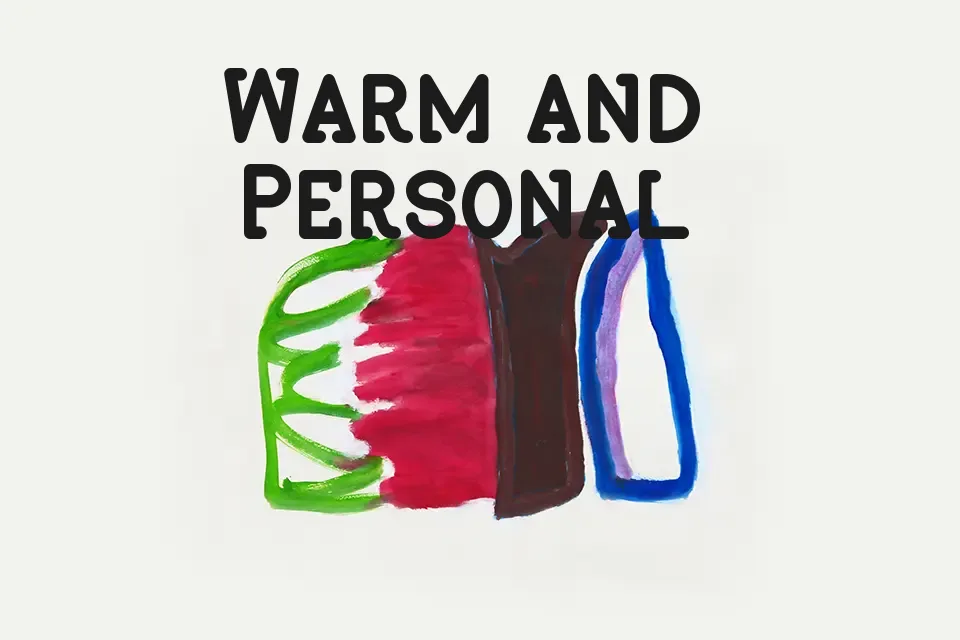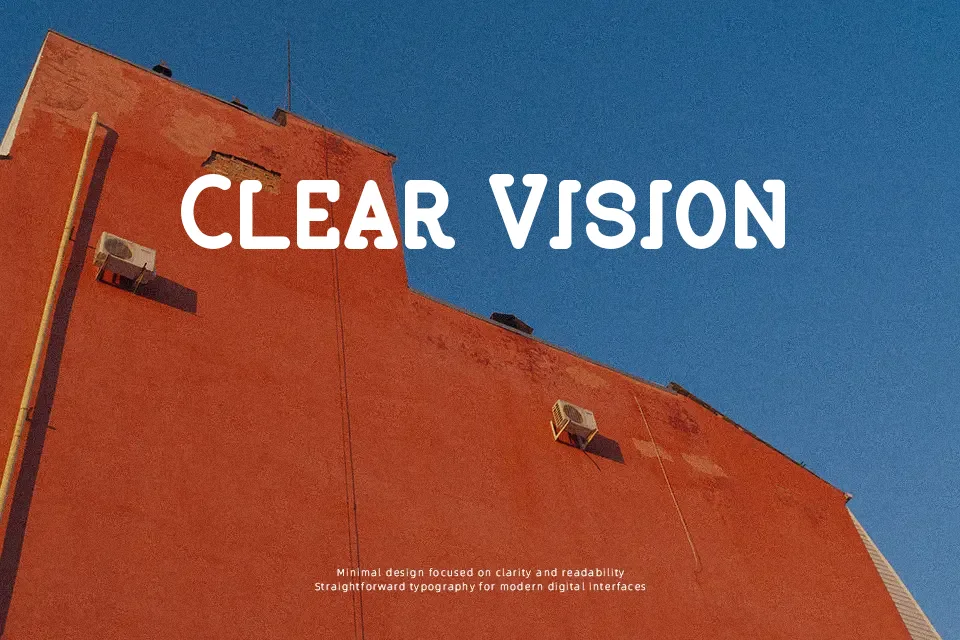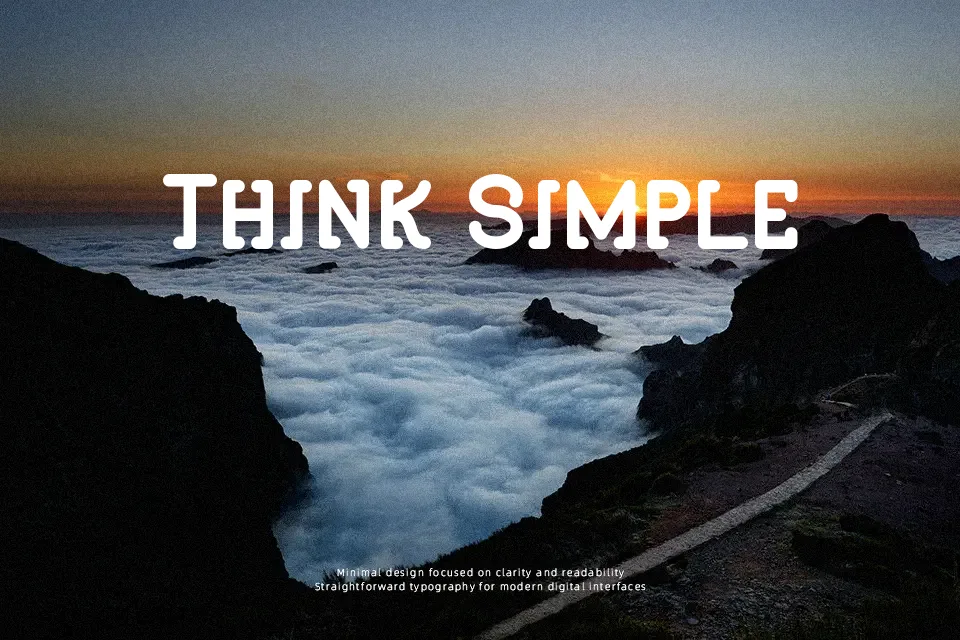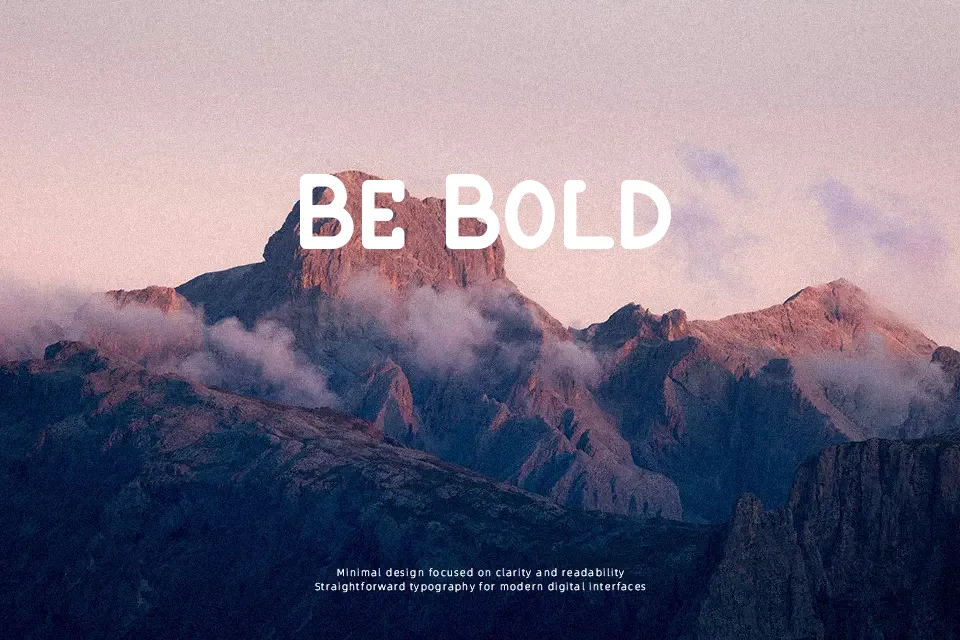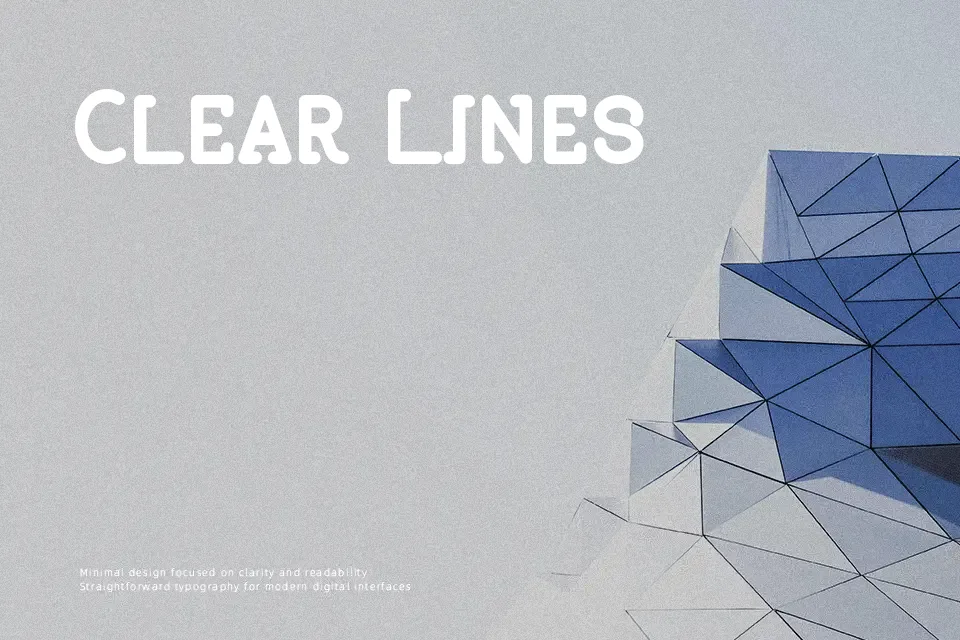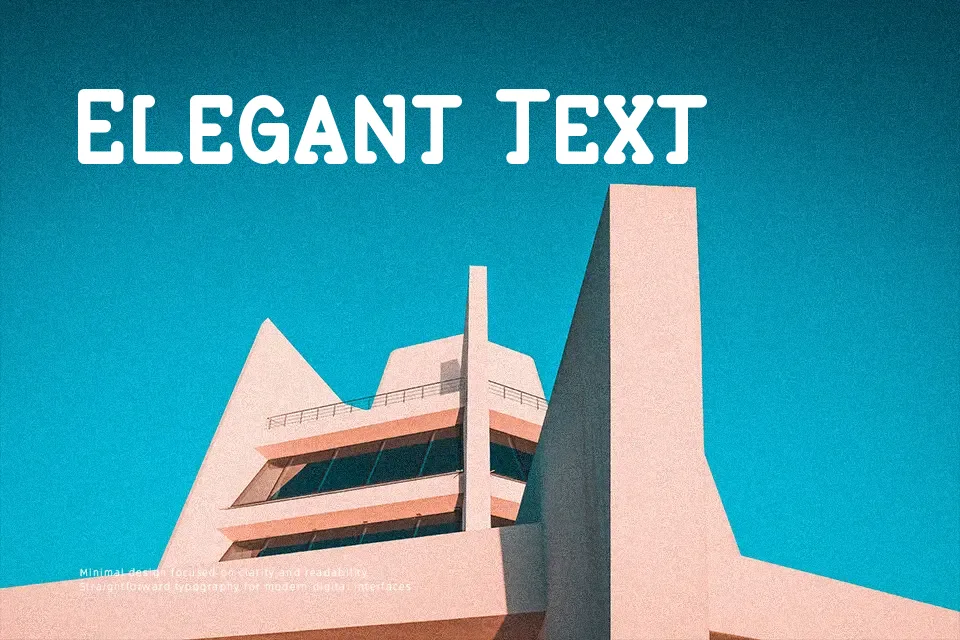
Snowy Christa Font
Snowy Christa Font is a decorative display typeface intended for short, attention-focused text. Its stylized letterforms give headings and themed titles a distinct visual presence, making it more appropriate for greeting cards, holiday graphics, poster wording, and social media artwork than for practical text settings. The design is best kept at larger sizes, where its individual shapes can be read more comfortably and the overall rhythm remains clear. It is less effective in small captions or extended copy, where decorative details can reduce reading ease. Use it when the lettering itself should contribute to the composition.
Best For: holiday greeting cards,seasonal poster headlines,festive social media graphics,themed packaging titles
Perfect for christmas, holiday, and poster, with a creative and decorative style.